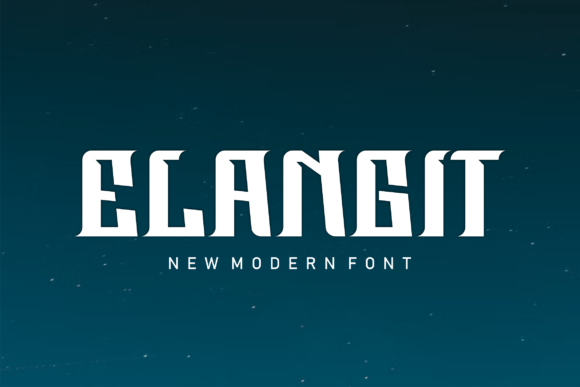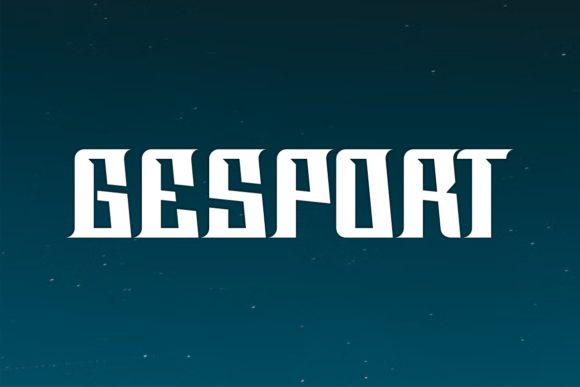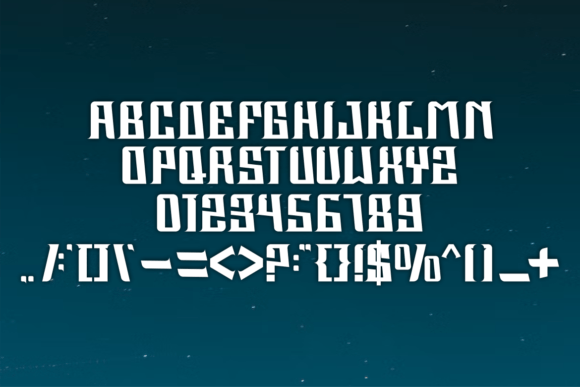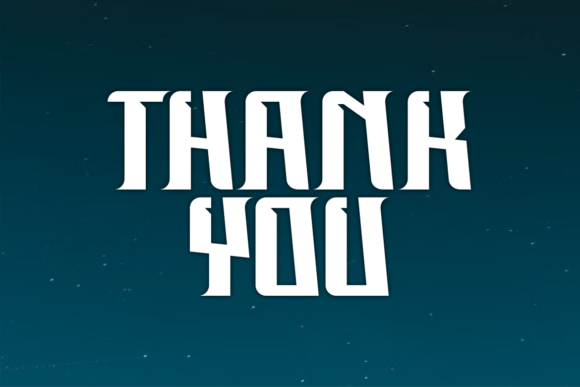
Elangit
Elangit: A Bold and Elegant Slab Serif Font
Elangit is a bold slab serif font that combines beautiful, classy, elegant, and modern design elements. This versatile typeface is perfect for various projects, from signatures and stationery to branding and packaging design.
Key Features of Elangit
• Bold Design: Offers strong, impactful letterforms.
• Elegant Style: Brings sophistication to designs.
• Modern Appeal: Features contemporary design elements.
• Versatile Application: Adapts well to numerous design contexts.
Best Uses for Elangit
Thanks to its versatile characteristics, Elangit works especially well for:
When using Elangit in your designs, keep these tips in mind:
• Try it for headlines or display text to showcase its bold elegance[2].
• Use different sizes to highlight its modern features.
• Pair with simpler fonts for body text to create balance.
• Let its versatility enhance both traditional and contemporary projects.
To sum up, Elangit is an excellent choice for designers seeking a bold and elegant slab serif font. Its versatility makes it perfect for a wide range of projects. Whether you’re creating wedding materials, designing logos, or developing branding packages, Elangit offers the perfect blend of contemporary style and timeless sophistication.
Furthermore, Elangit’s distinctive design allows it to shine in contexts where both boldness and elegance are key[2]. For instance, from stationery to website headers, this font can elevate your projects with its refined style. Also, its bold yet classy appearance works particularly well in designs that aim to make a sophisticated impact.
In conclusion, Elangit truly captures the essence of modern elegance in slab serif typography[4]. Its versatility across different applications shows how well it can serve various creative needs. Therefore, for those wanting to add a touch of bold sophistication to their work, Elangit can enhance any design with its unique style. Ultimately, it’s perfect for designers aiming to make an elegant, modern impact across a wide range of creative projects.